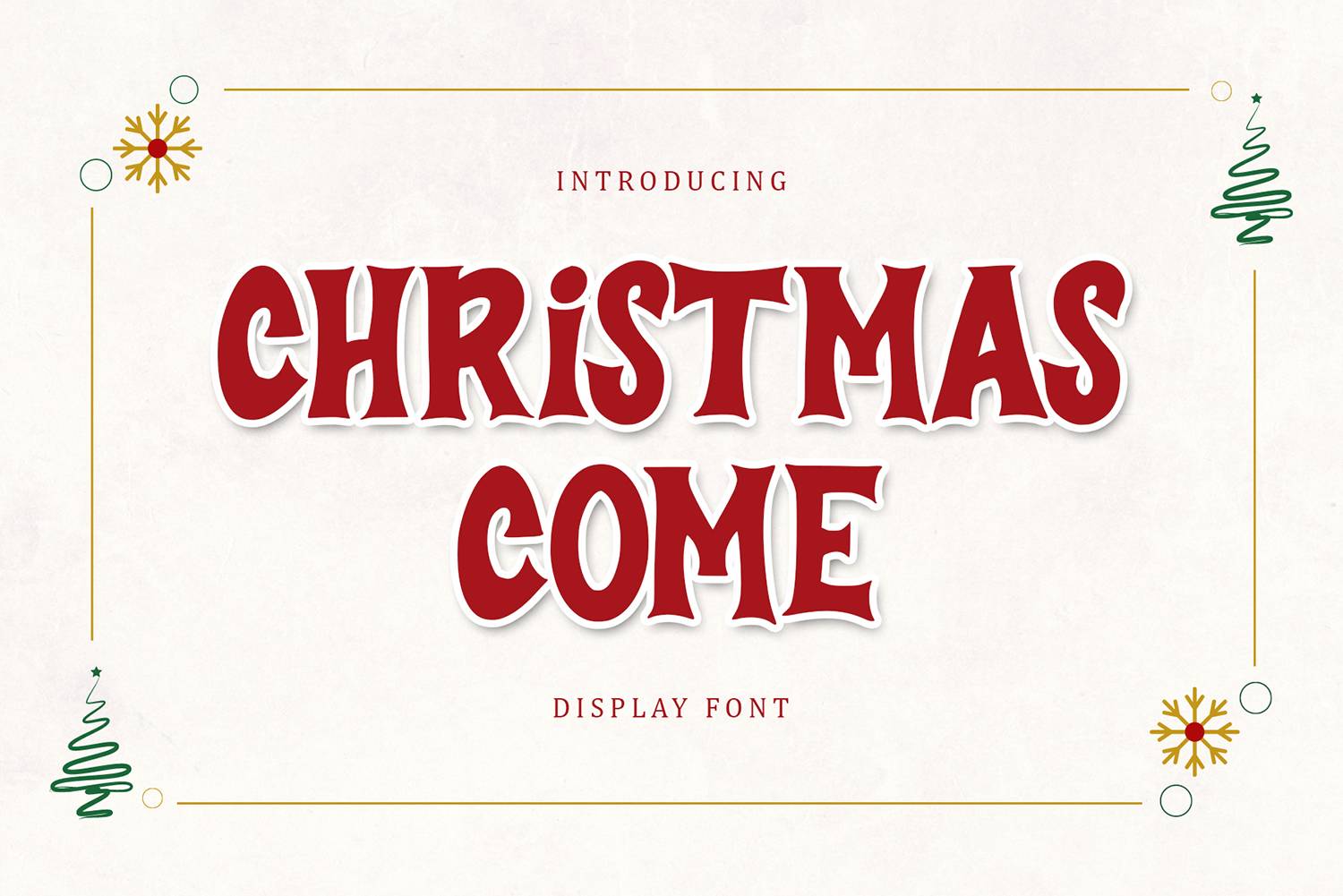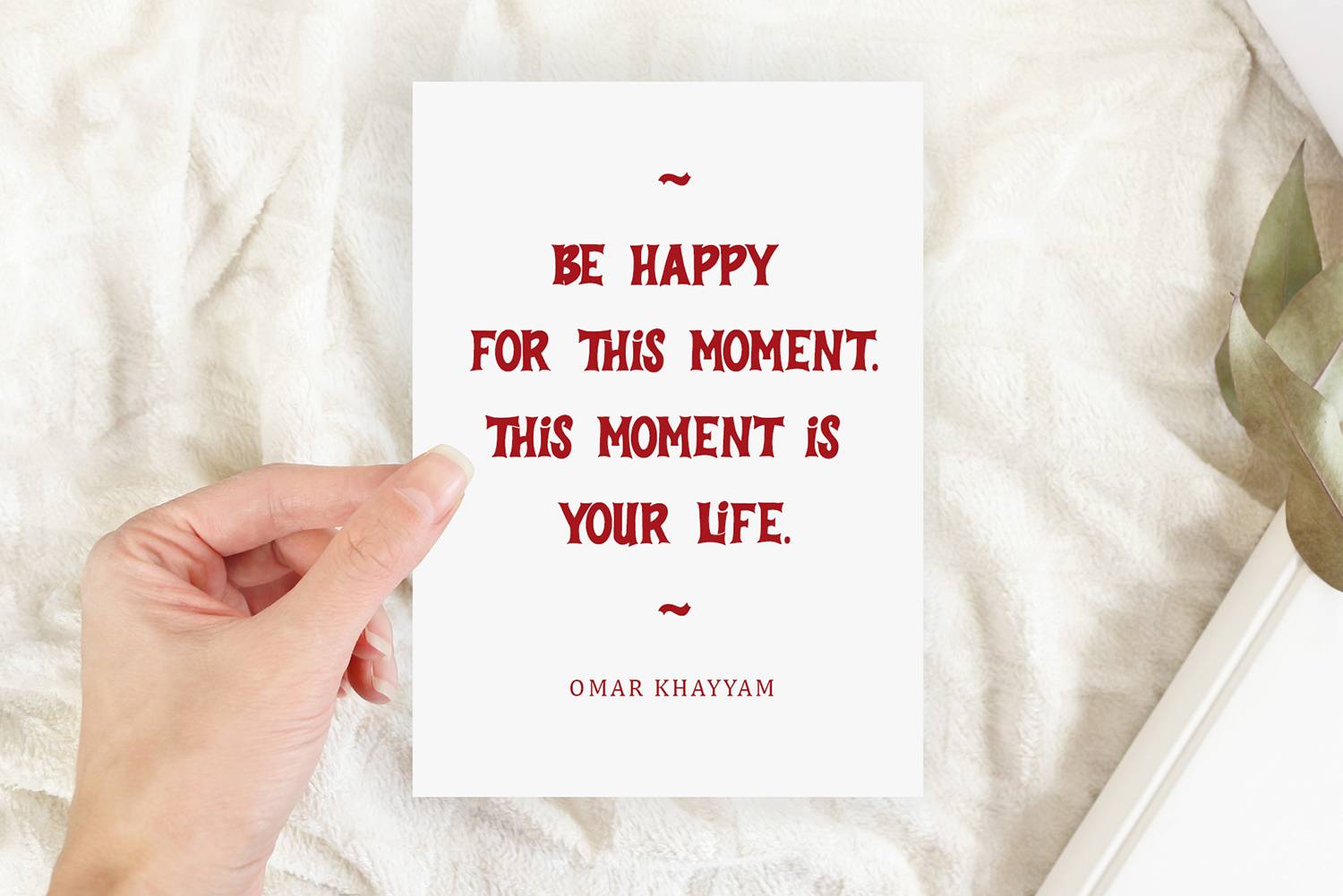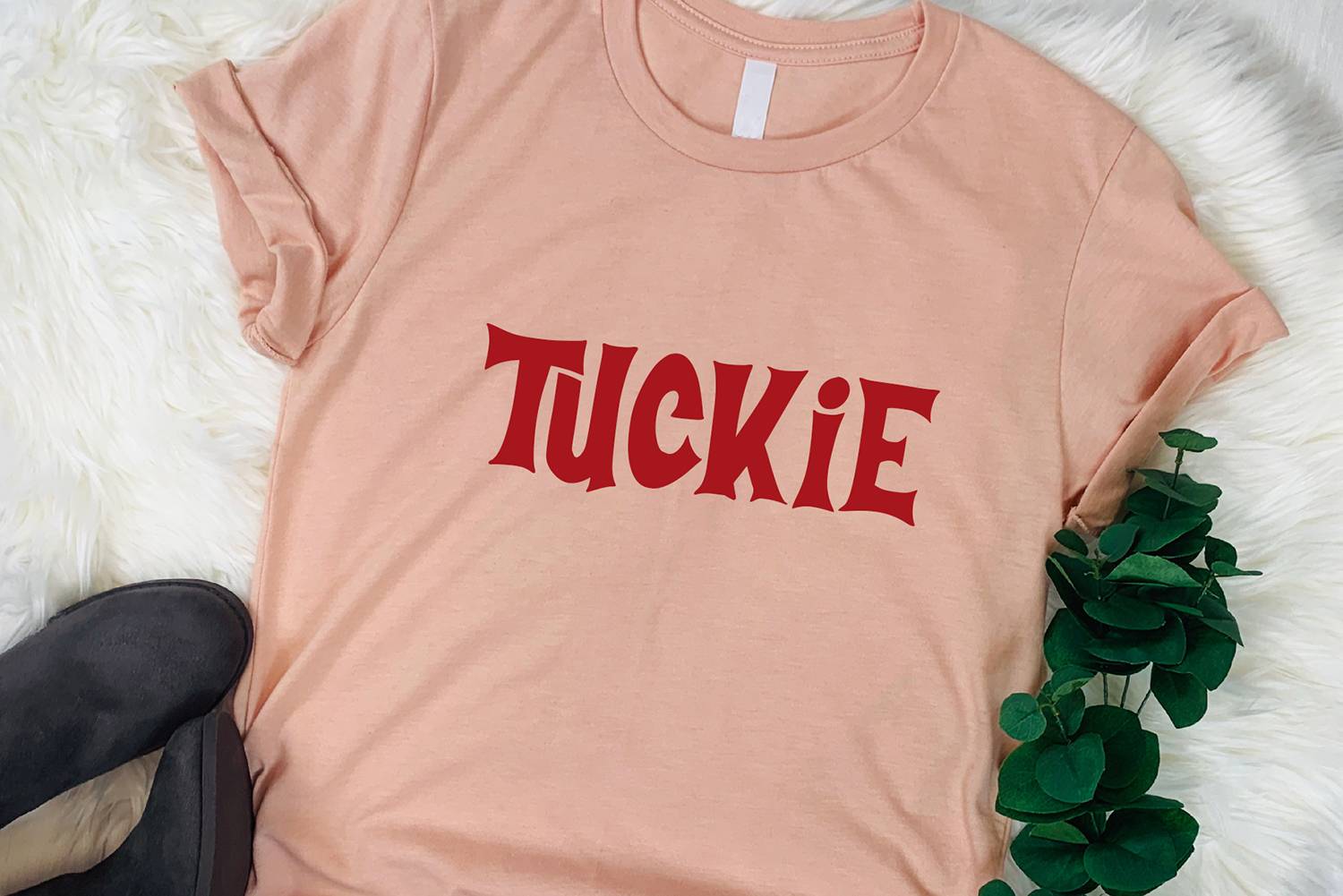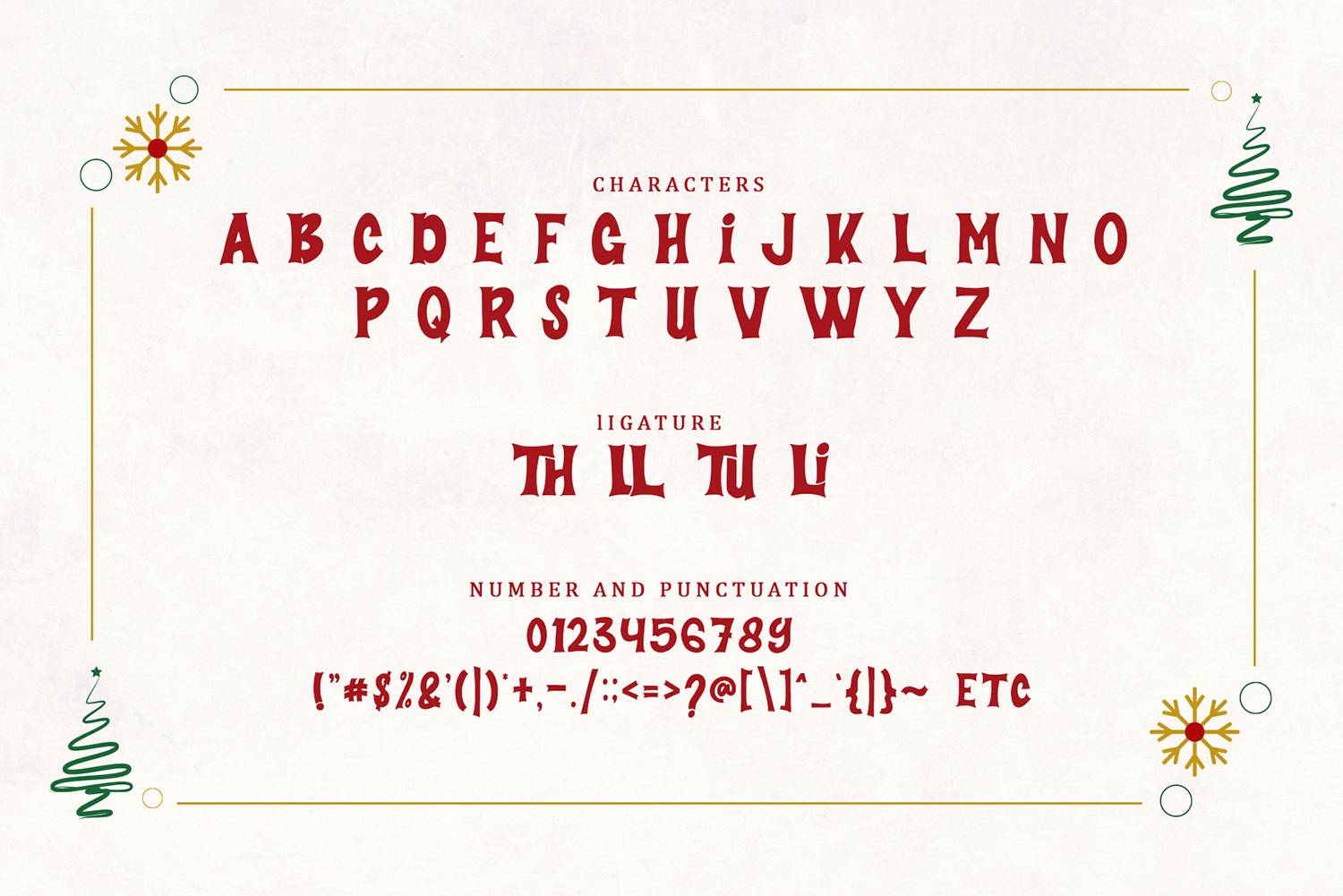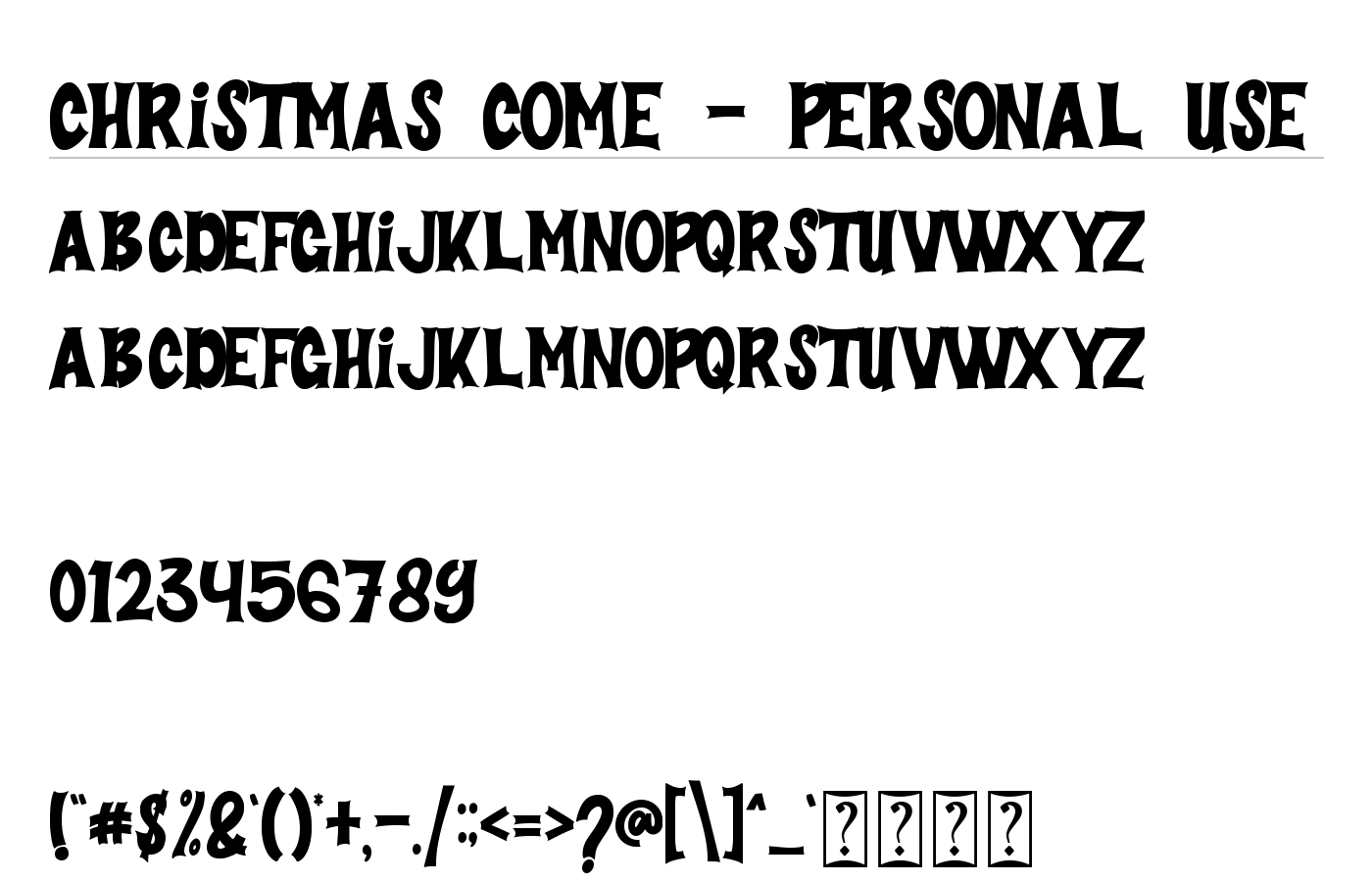
Christmas Come is a playful, bold display font with a hand-crafted feel, featuring thick, uneven strokes and quirky, slightly irregular letter shapes. Its condensed, chunky forms and high x-height make it eye-catching and perfect for festive or fun-themed designs. This font works well for holiday cards, party invitations, and decorative headlines where a lively, whimsical style is needed.
Christmas Come Font
About Christmas Come Font
| Font family | Christmas Come Font |